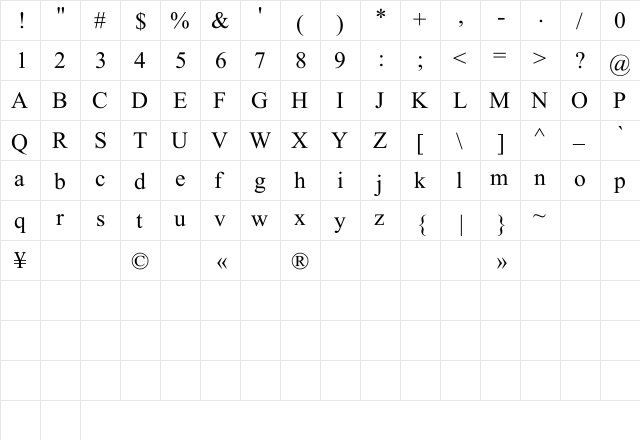
UKIJ Basma Regular
| Foundry | Waris ABDUKERIM JANBAZ |
Design Context for UKIJ Basma Typeface
UKIJ Basma is a composed and adaptable typeface that performs quietly and consistently across a wide range of design contexts.